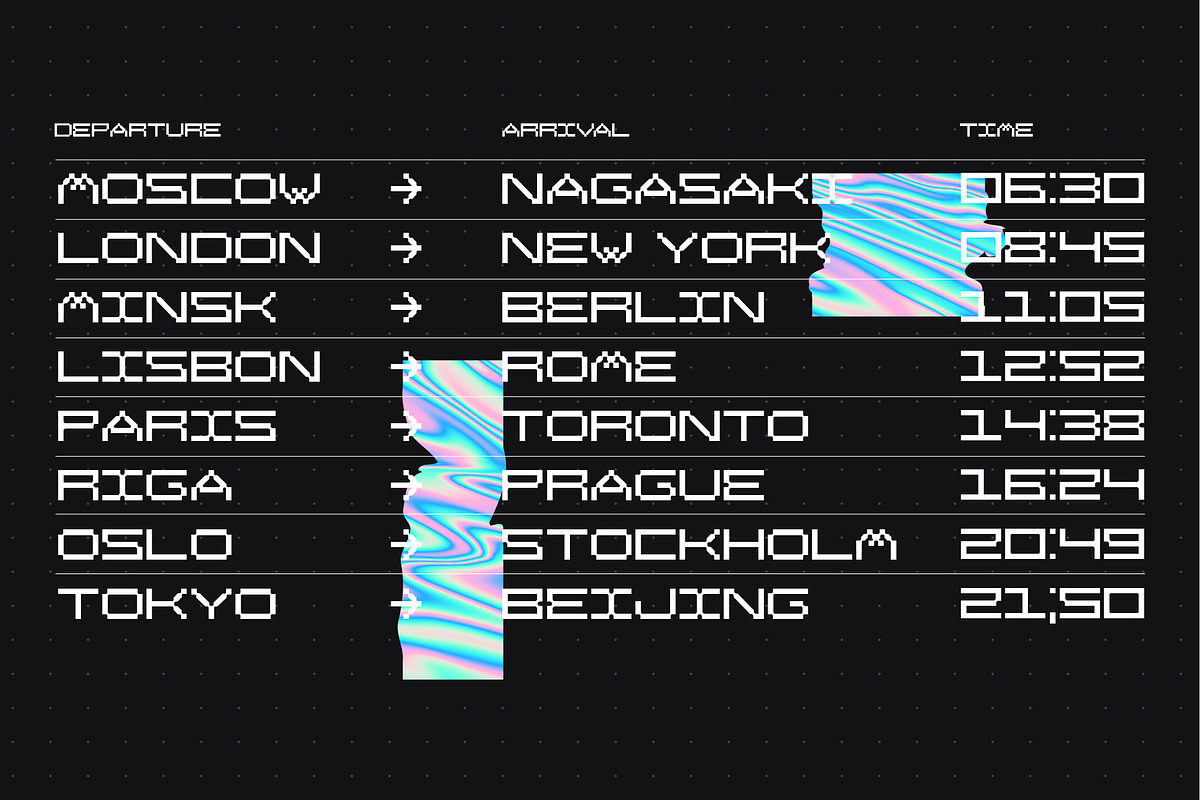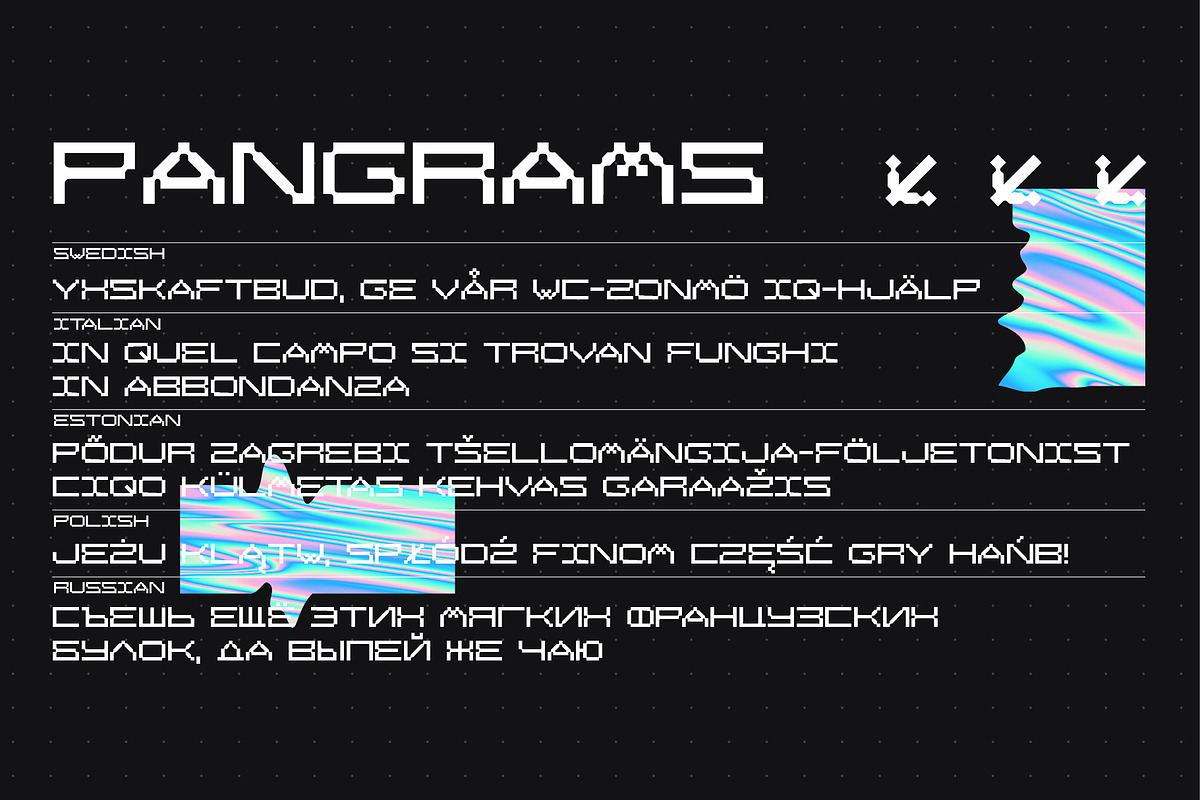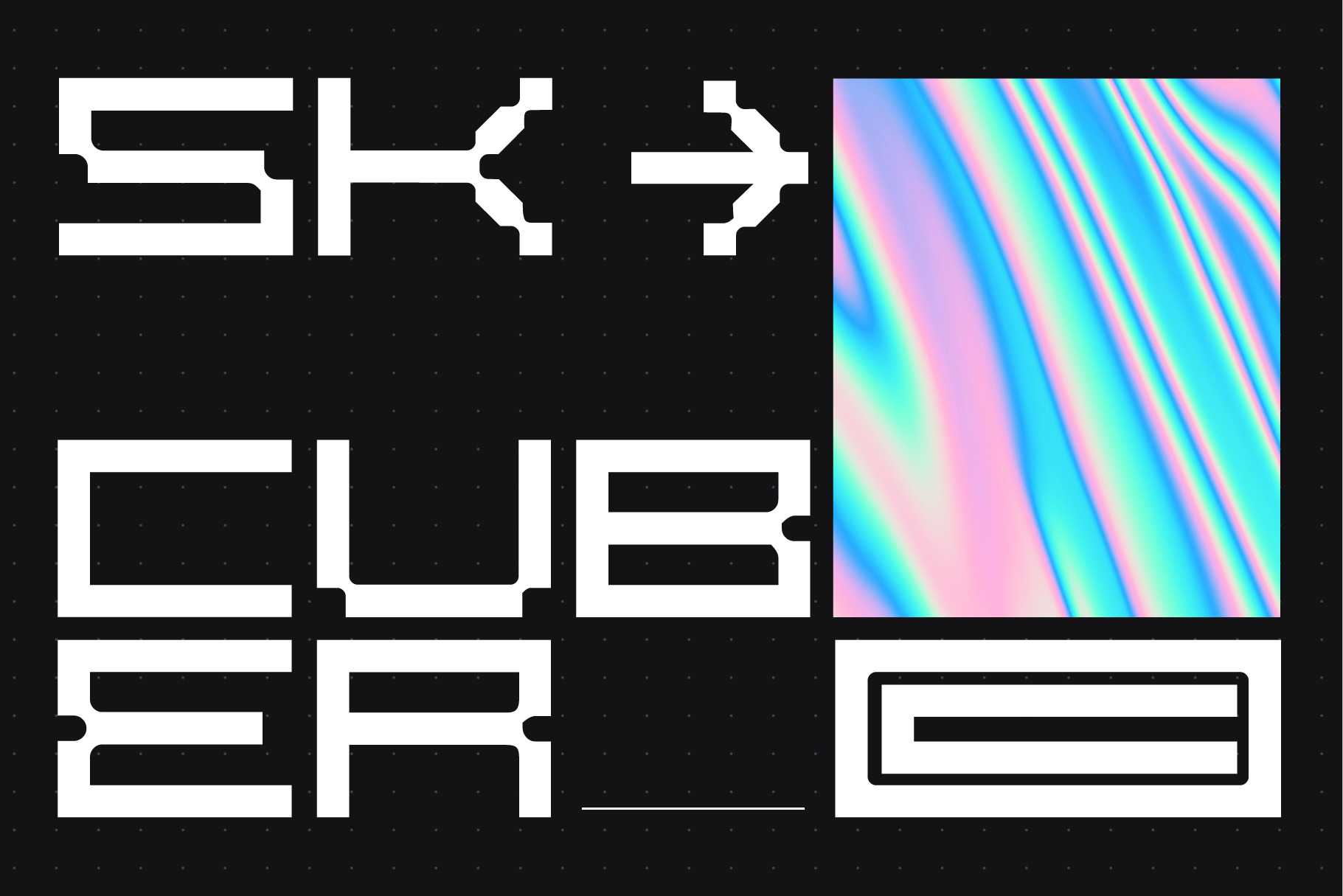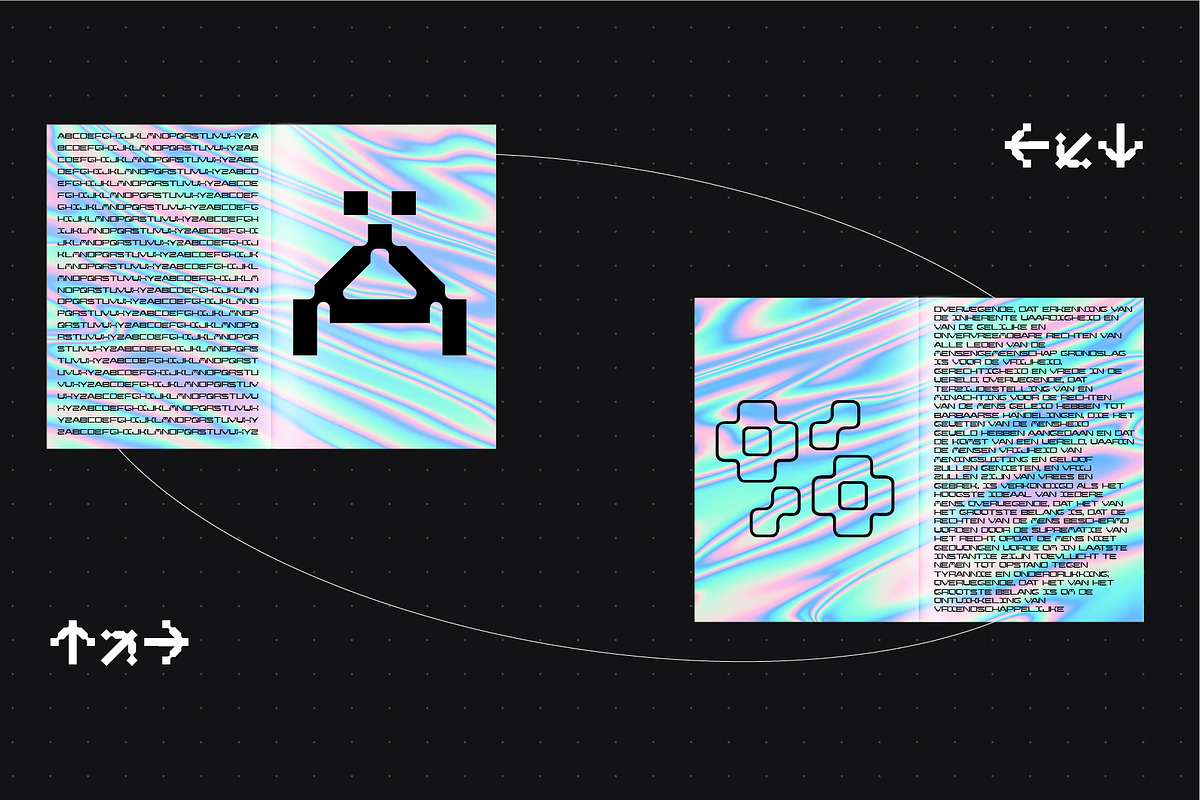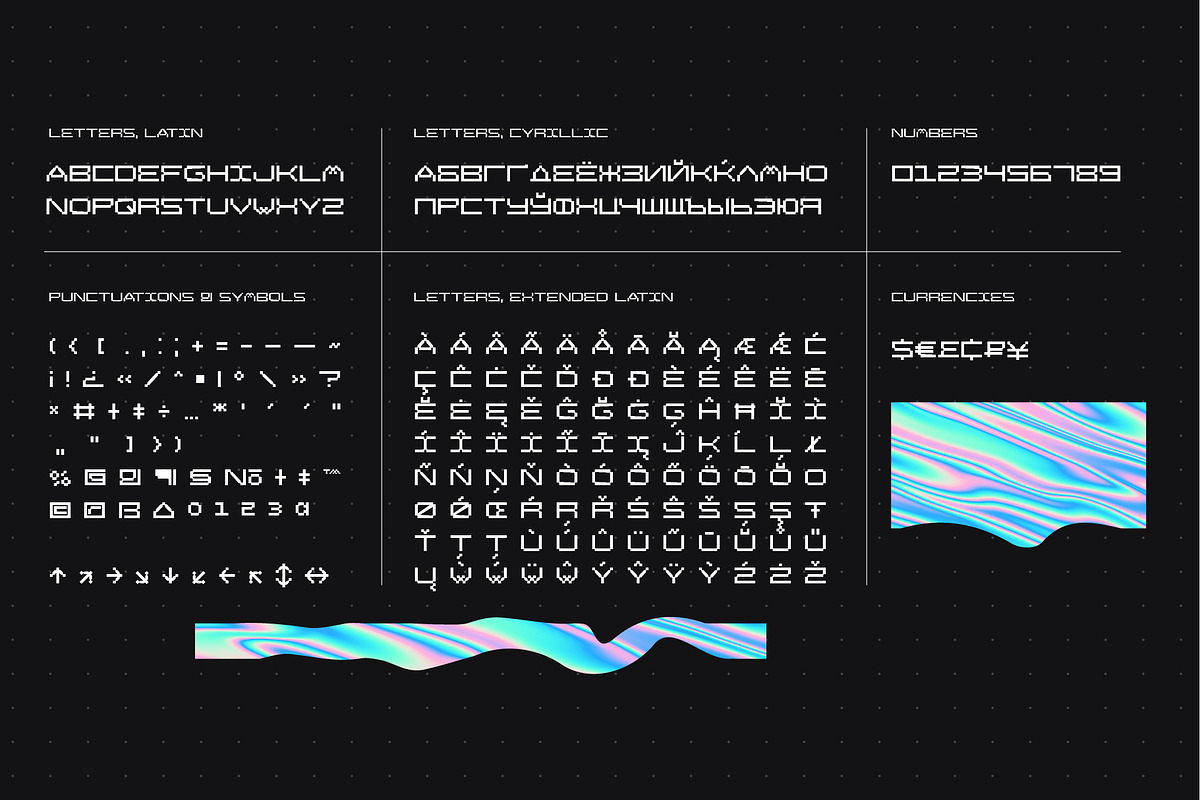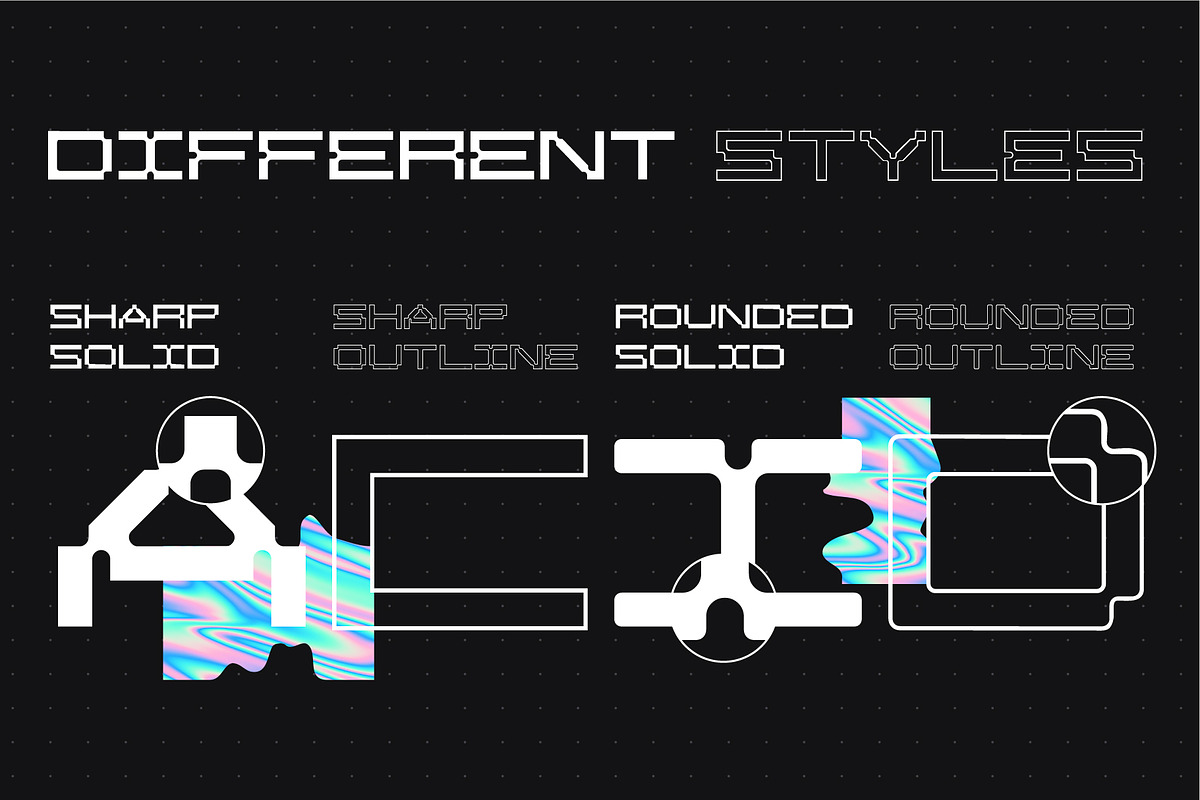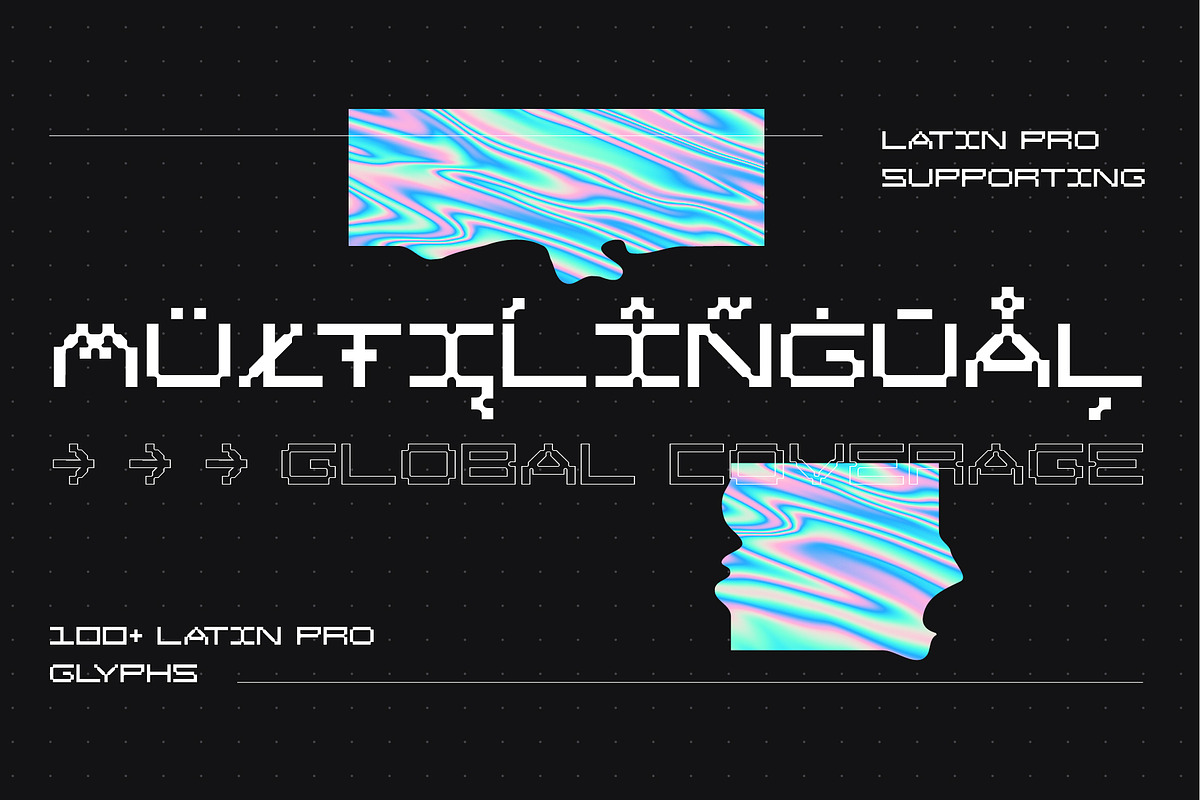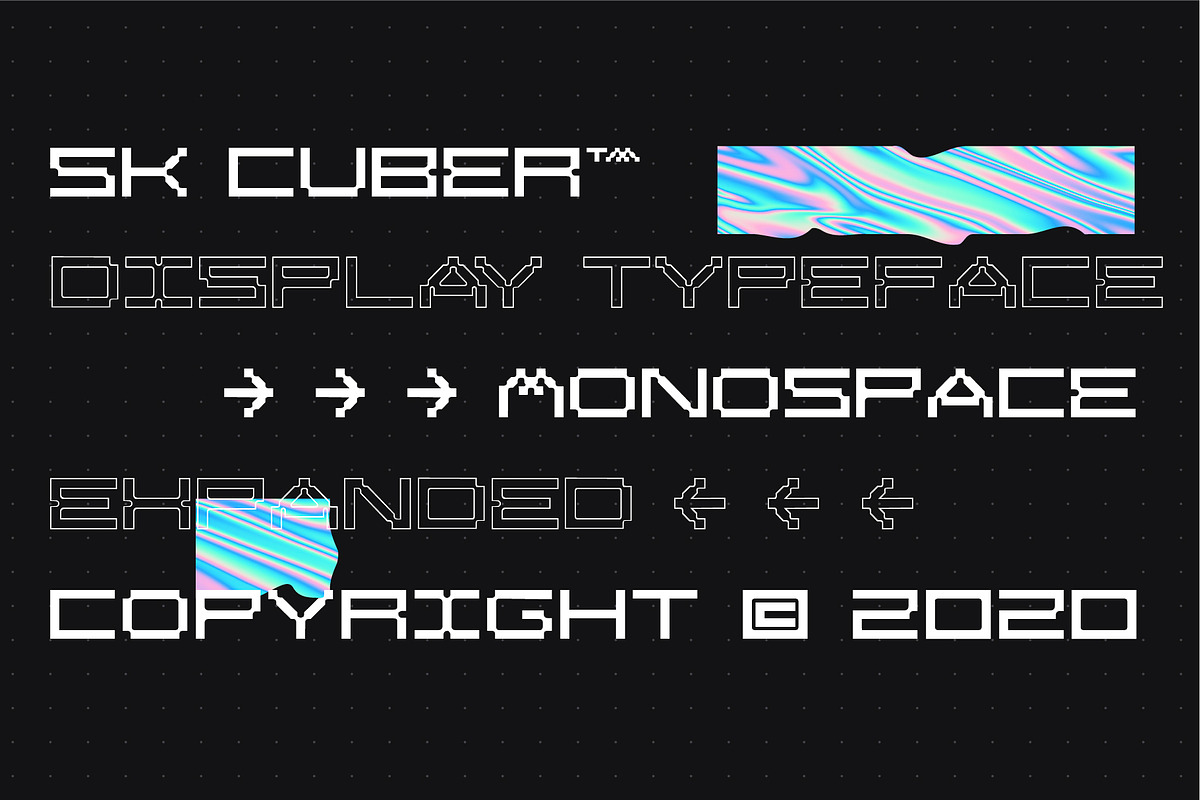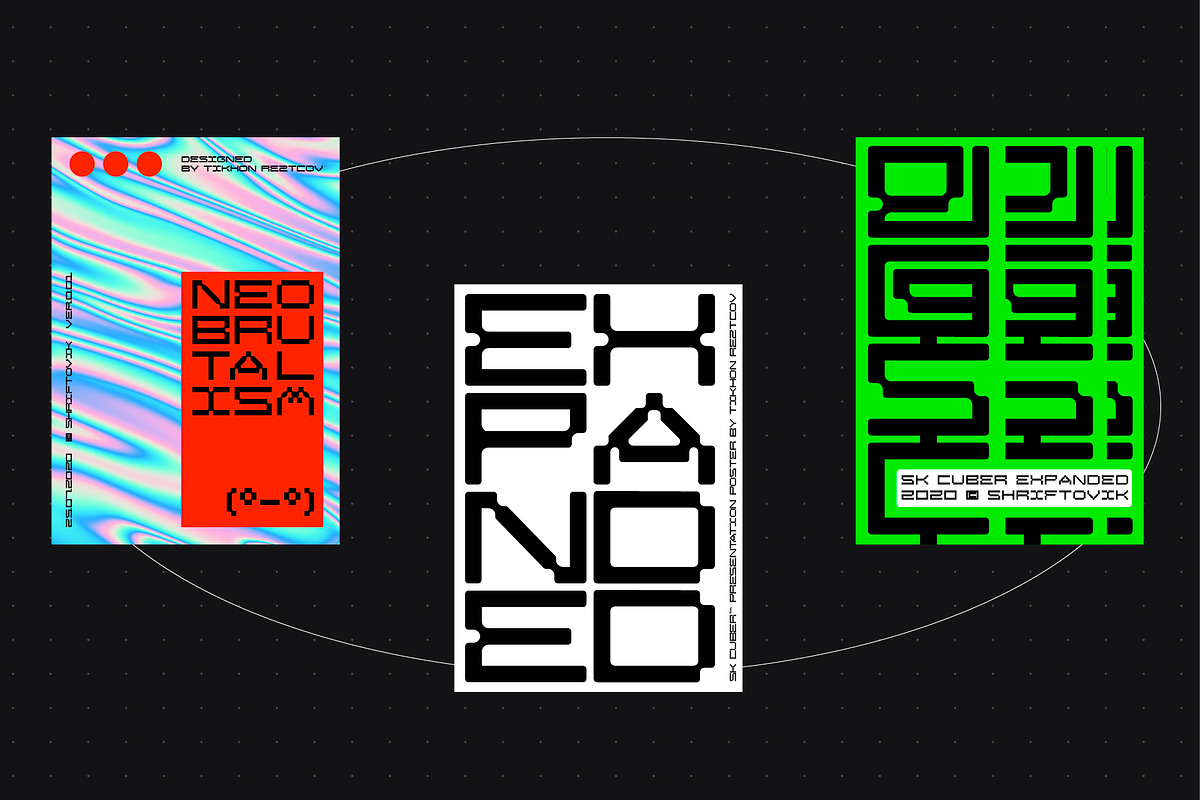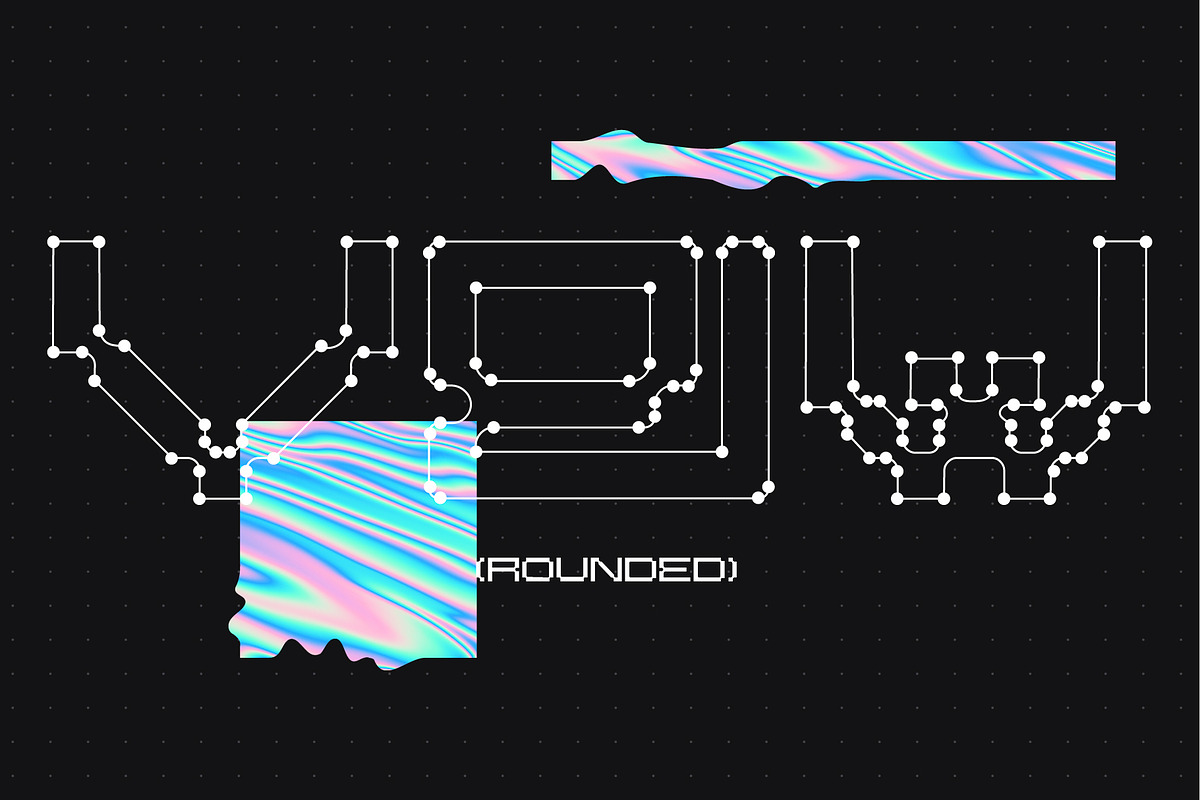
SK Cuber — Extended Monospaced Font
SK Cuber is an expanded monumental pseudo-pixel typeface. It is based on a strict grid that is not broken in any glyph. This makes the type more organic and consistent. The type's characters are monosized, but they do not look ridiculous and do not cause discomfort as it usually happens. This could only be achieved by carefully working out each glyph. The type also deliberately uses the contrast between geometric strokes and smooth transitions. It adds to his liveliness and character. SK Cuber is inspired by the monumental architecture of our days. It is brutal and extremely stable, which makes it an excellent font for working with posters, headlines, etc.